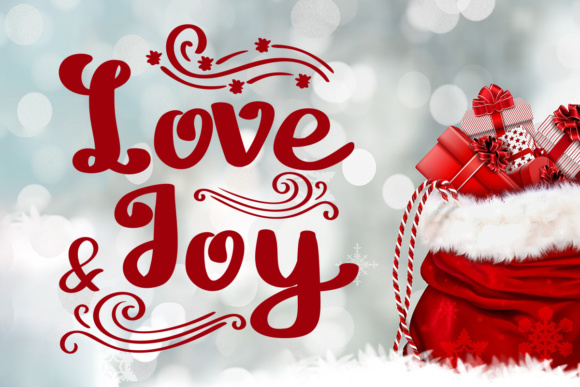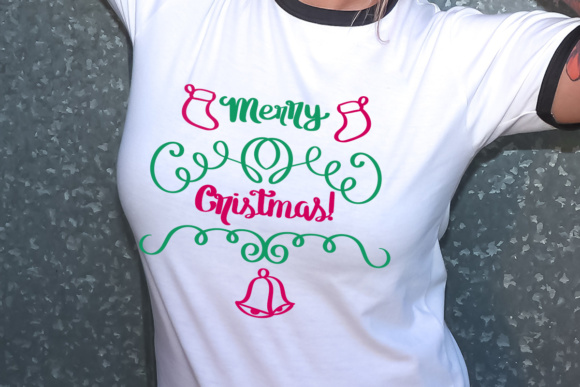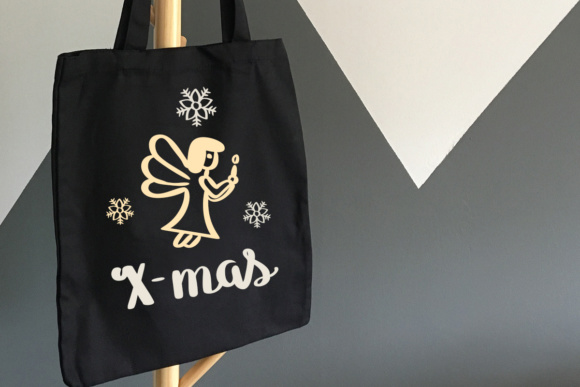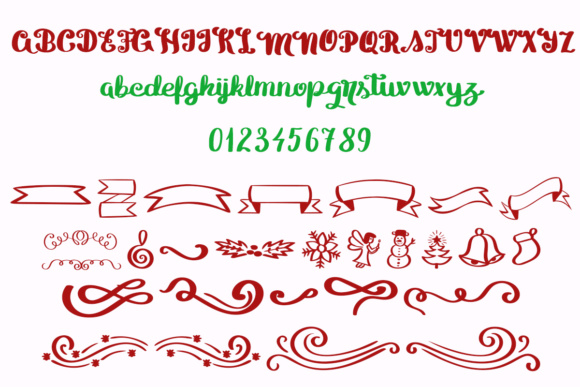
Love and Joy Font
About Love and Joy Font
When you use Love and Joy for text, and you make that text red or green, it will scream: Christmas!
Love and Joy is the perfect font for making all your fun Christmas shirts, decorations, Christmas cards and much more.
Besides the super playful letters, the font also includes banners, some Christmas swashes and other ornaments.